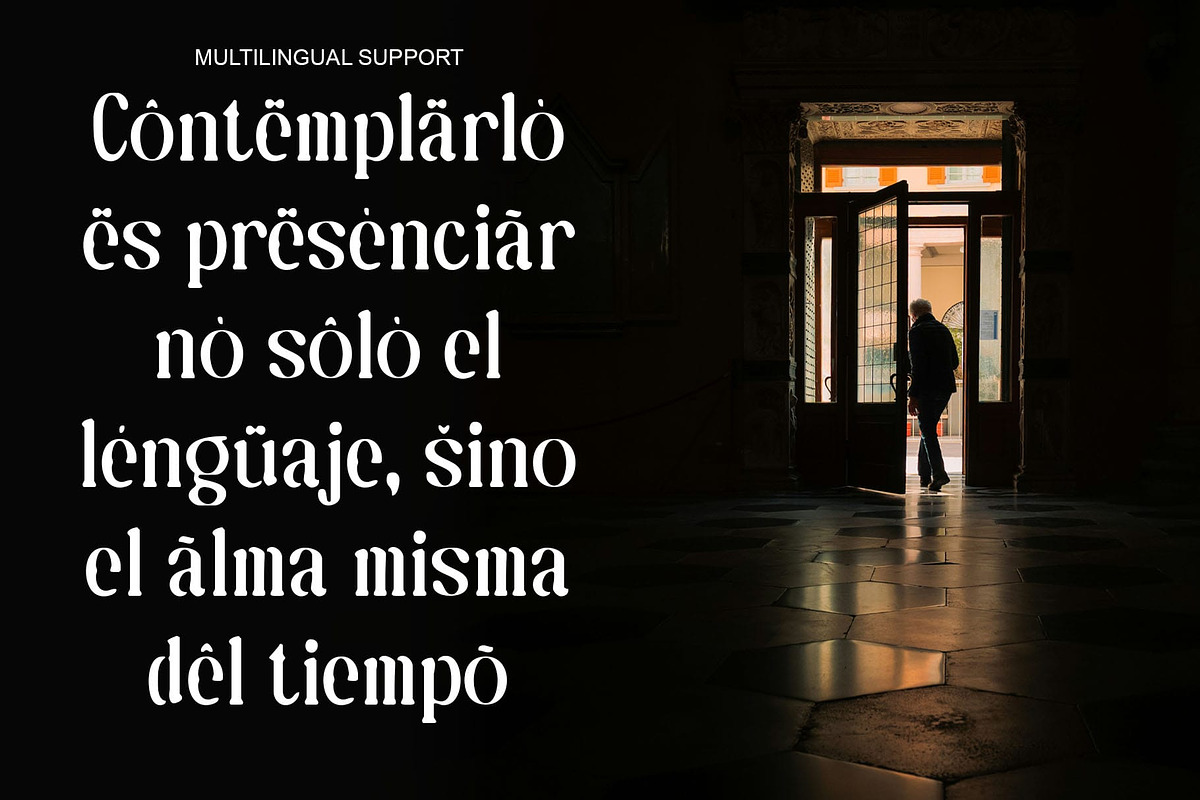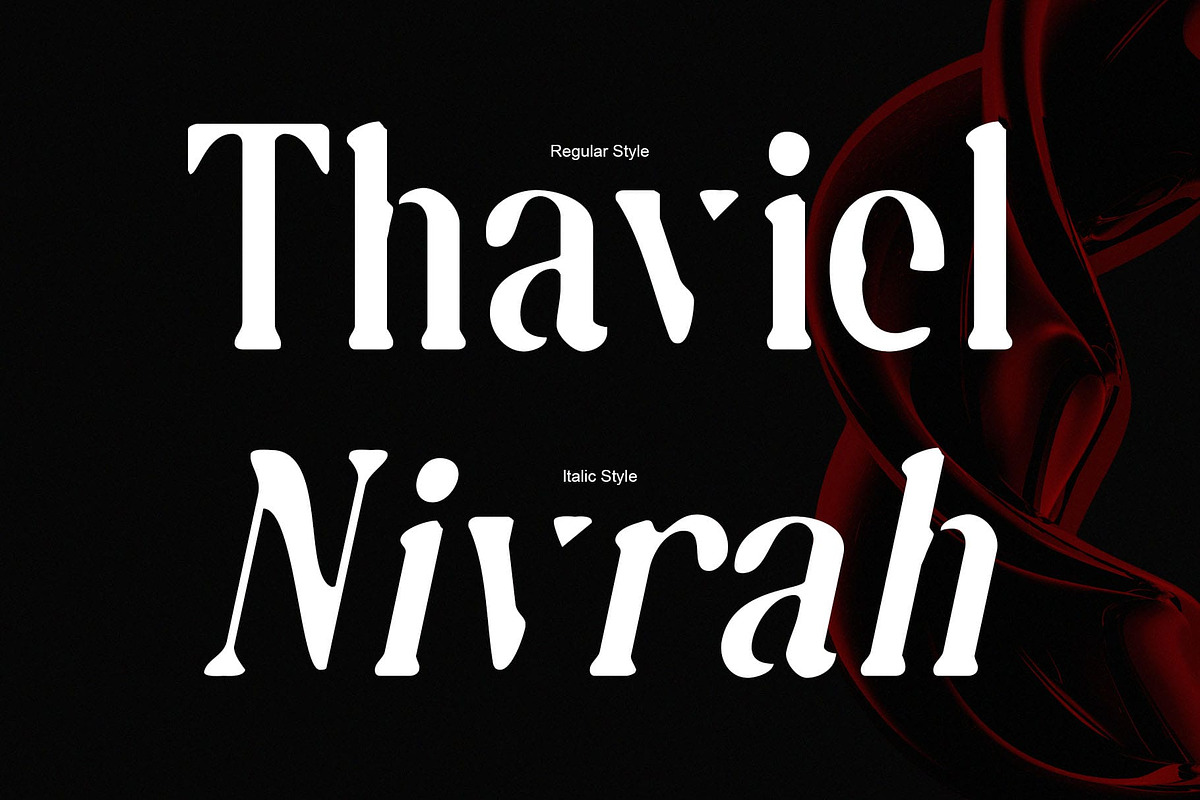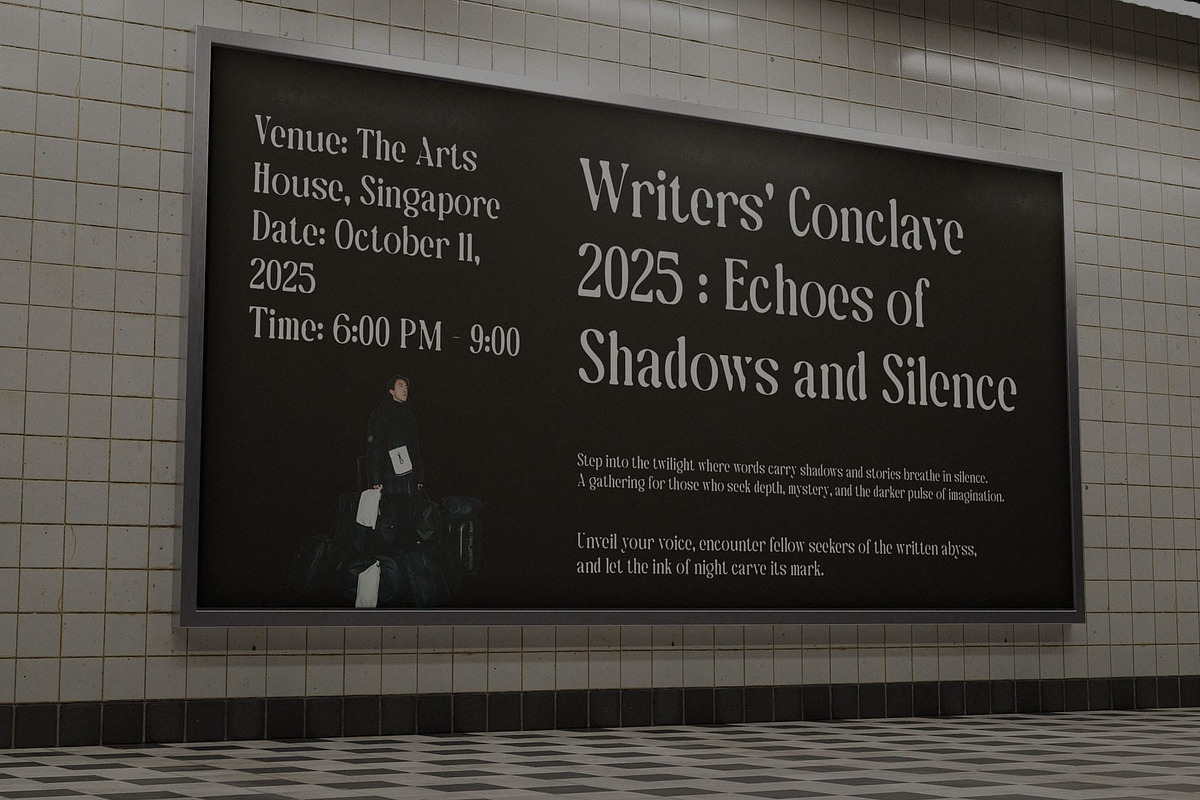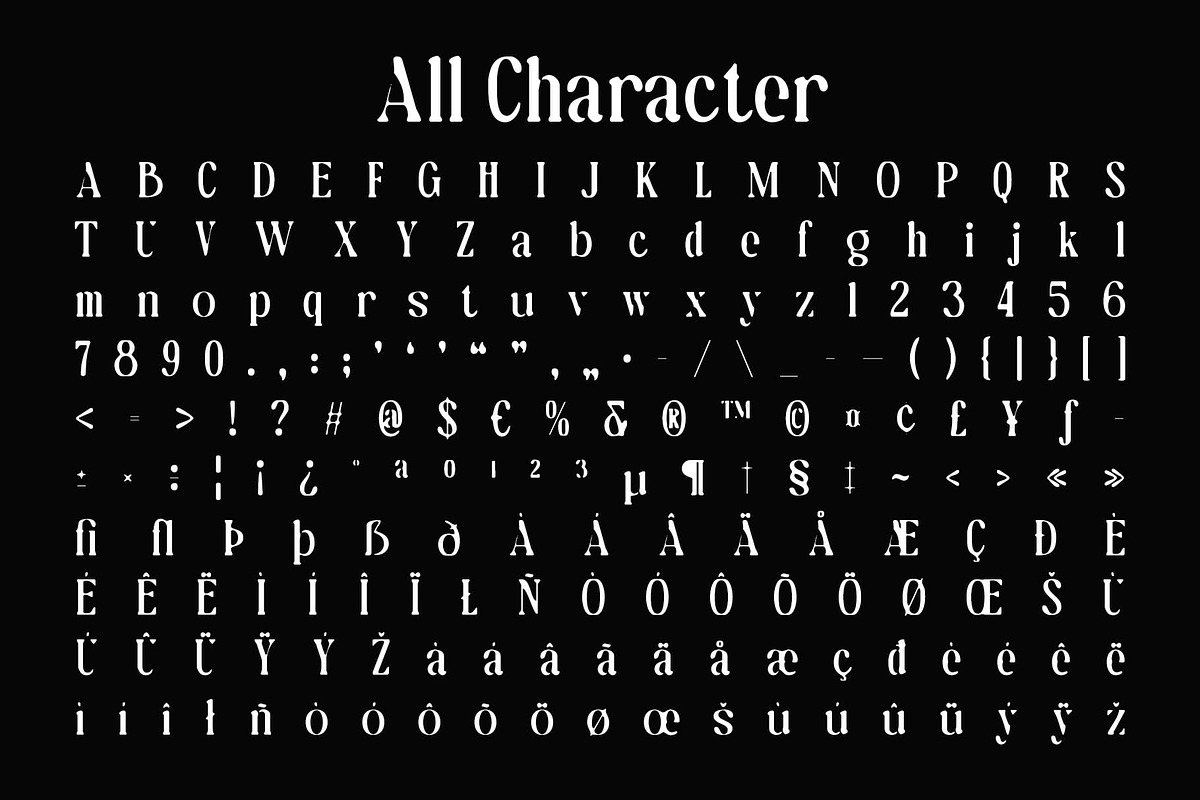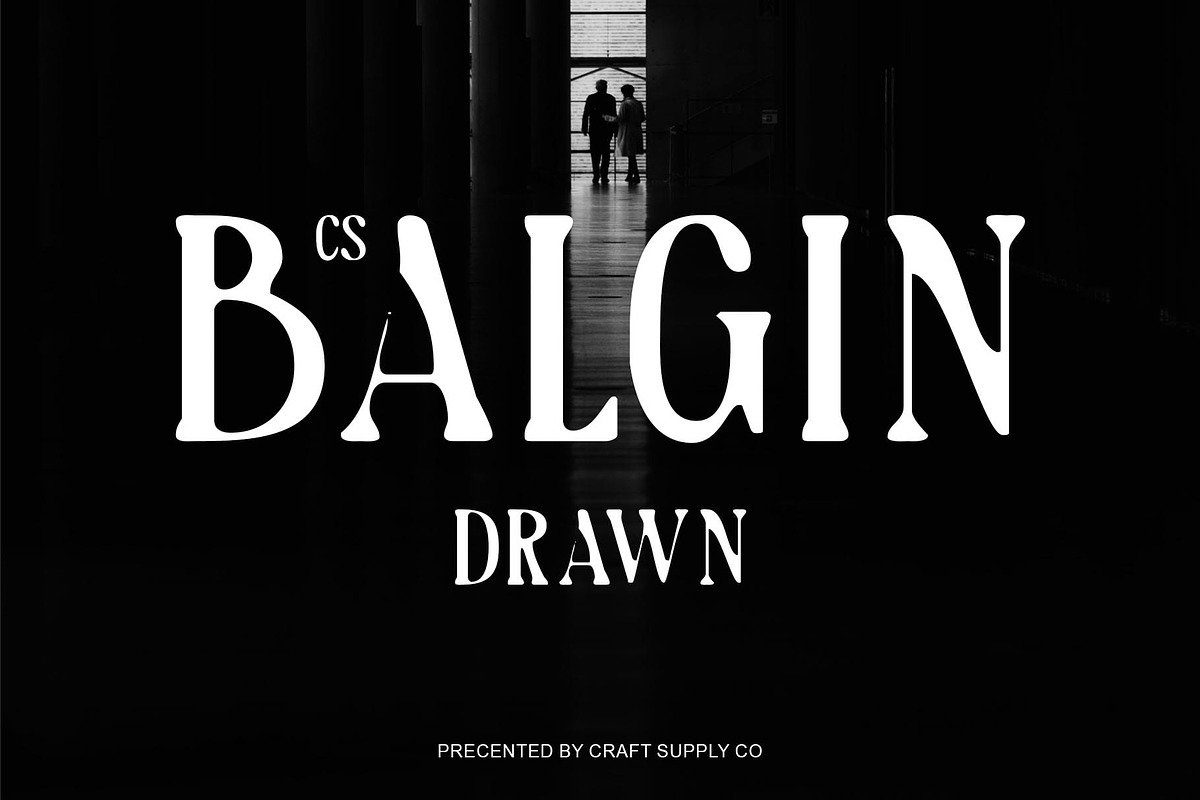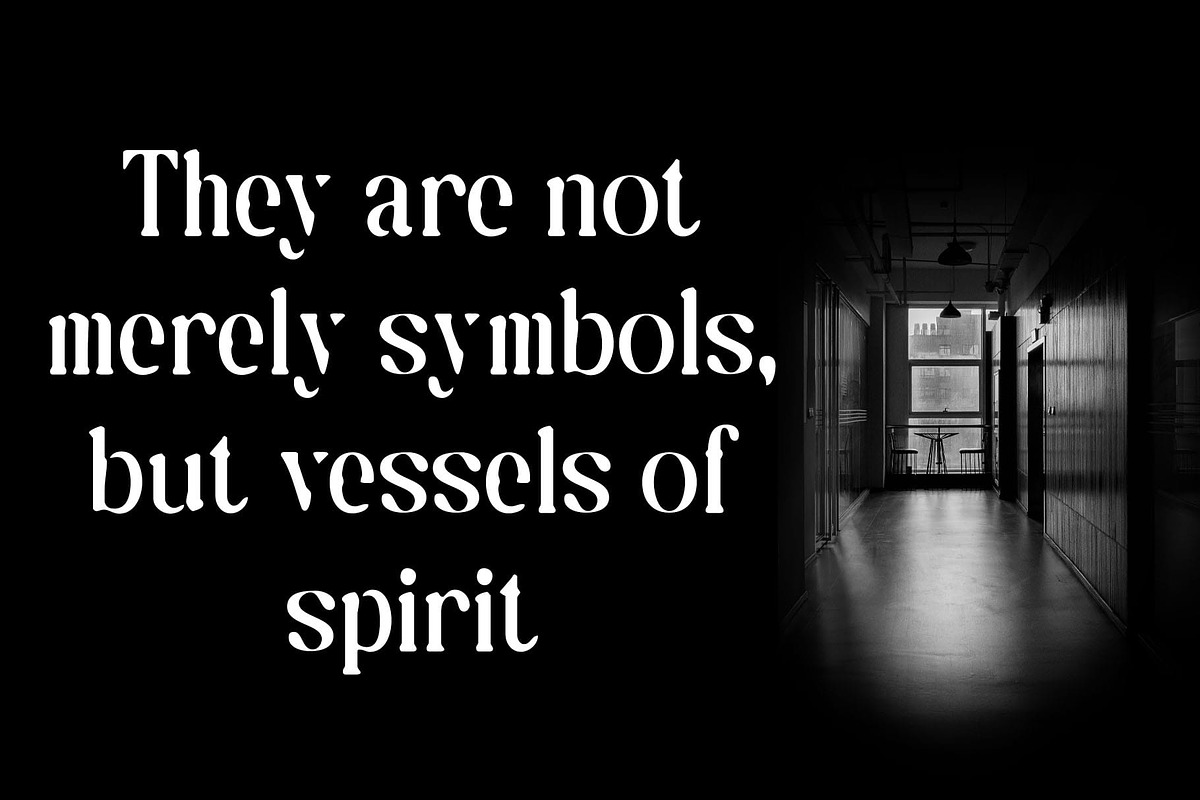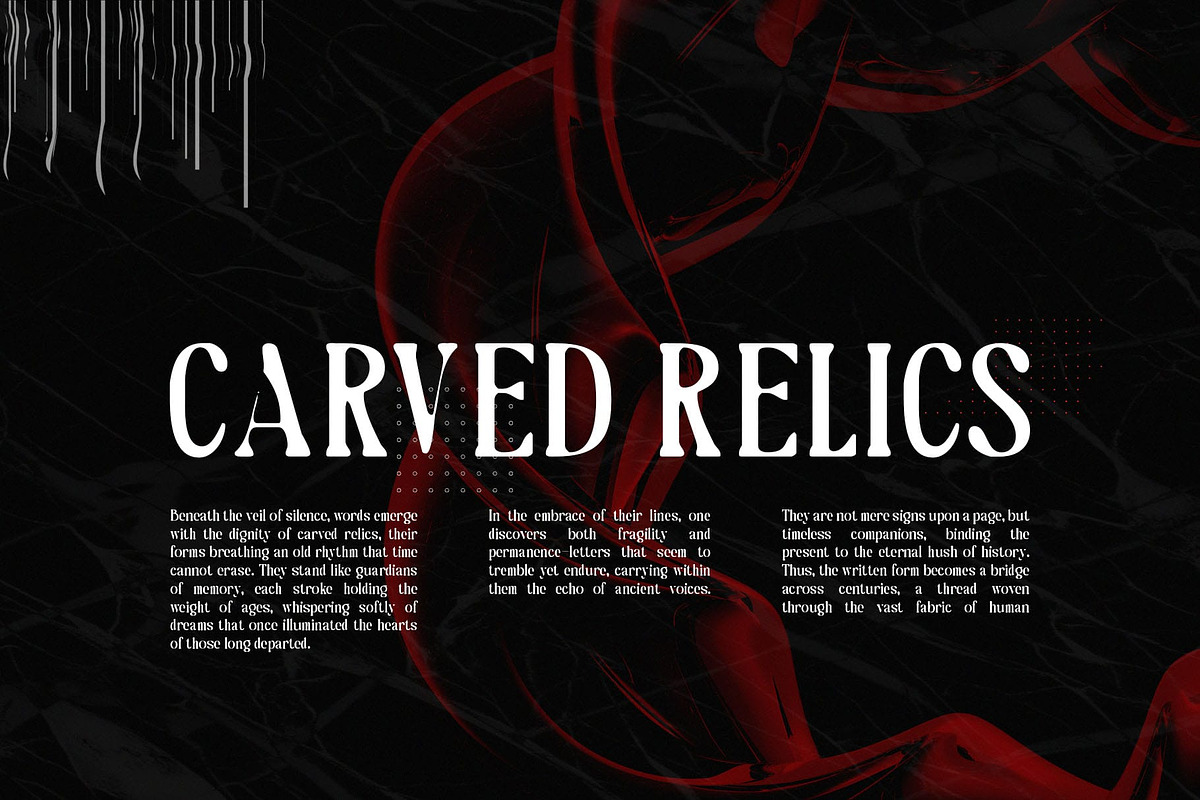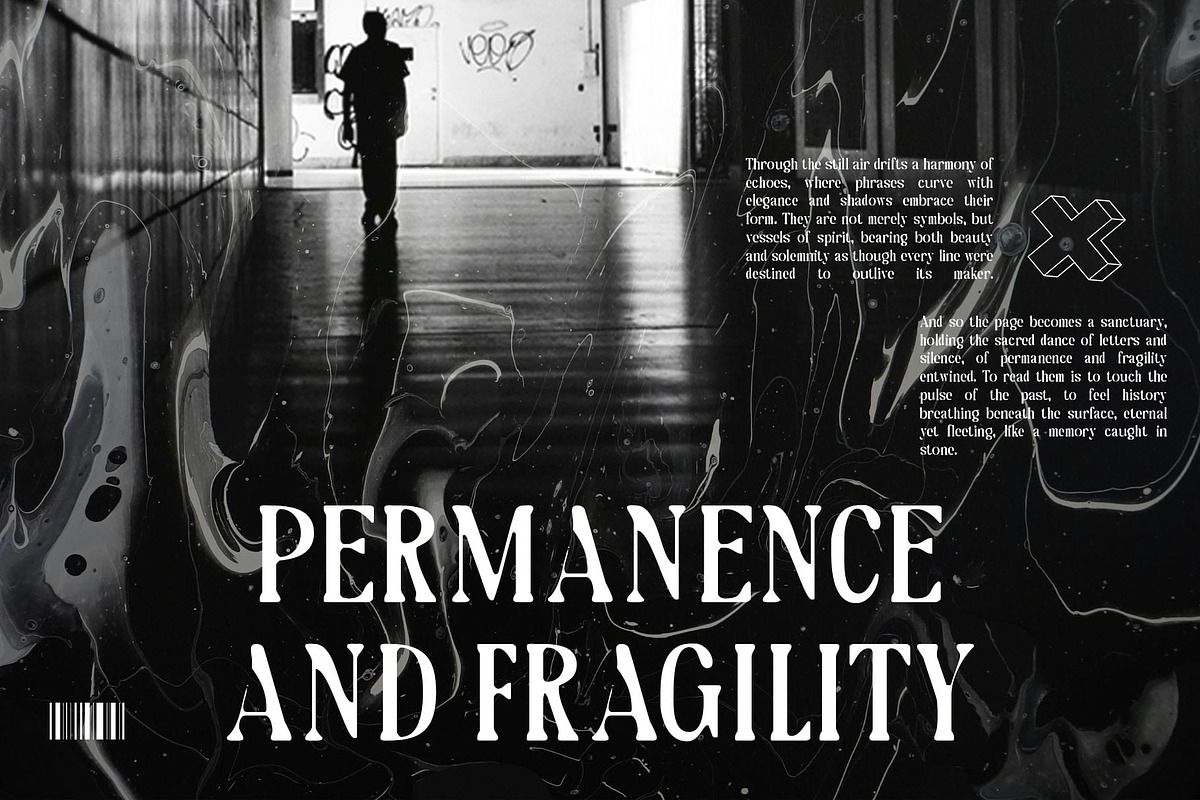
CS Balgin Drawn
CS Balgin Drawn – Classic Modern Serif with Handmade Texture: Where Timeless Design Meets Expressive Artistry
Classic Modern Serif with Professional Elegance This is a classic modern serif font defined by its clean, slender lines and balanced proportions. Designed for sophistication, it delivers a professional yet approachable feel, making it an excellent choice for projects that require both authority and refinement. Its modern serif styling ensures clarity and elegance in every application.
Drawn Texture for Personality and Depth What sets this font apart is its unique drawn texture, which enriches the sharp serif forms with handcrafted charm. This subtle handmade effect infuses each character with personality and expression, transforming a refined serif into a distinctive, artistic statement. The blend of precision and artistry makes it stand out across both print and digital designs.
Perfect for Branding and Editorials Whether applied to logos, posters, or editorial layouts, provides timeless versatility. Its clean structure supports brand identities that seek professionalism, while the drawn detailing adds a memorable, human touch. This combination makes it a reliable choice for modern brands aiming to balance tradition creativity.
Timeless Design with Artistic Flair The font successfully merges timeless serif design with expressive artistry, creating a font that works equally well in corporate contexts or artistic environments. From luxury branding to stylish posters, it captures attention with sophistication while leaving a unique impression through its drawn detail.